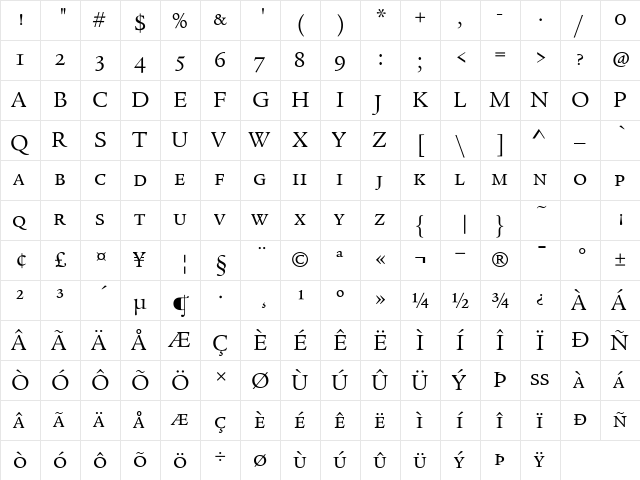
LegacySerifITCSC-Book Book
Design Context for LegacySerifITCSC-Book Typeface
LegacySerifITCSC-Book brings classic typographic sensibility to the table — its serifs and measured letterforms reflect centuries of print heritage.
Pro Tip: Set LegacySerifITCSC-Book with slightly loose tracking in headlines to let each letterform's detail read clearly at display sizes.